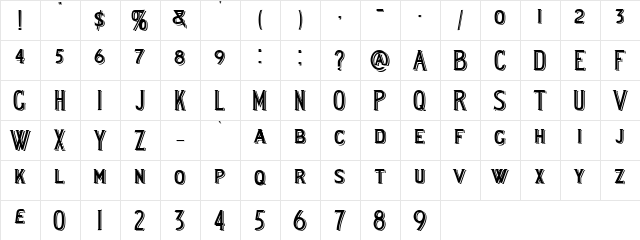
Complete LewishamShadowed Regular glyph index. Displaying only characters natively supported by LewishamShadowed Regular font.
LewishamShadowed is built around its visual character rather than neutral utility - its distinctive forms are designed to make an impression at display sizes.
Font Pairing: Pair with a clean neutral sans-serif for body copy to let LewishamShadowed's character lead without overwhelming the composition.
Pro Tip: Use LewishamShadowed exclusively at display sizes - it was designed to be seen, not read at length. Let a neutral companion handle body copy.